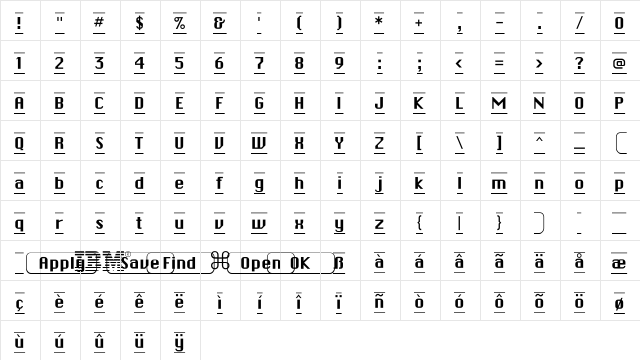
ButtonPlainFLF Regular
Design Context for ButtonPlainFLF Typeface
ButtonPlainFLF offers clean, dependable letterforms without strong stylistic allegiance, making it a practical choice for designers who need flexibility.
Pro Tip: Use ButtonPlainFLF in both headline and body roles to test its range before committing to a single application.